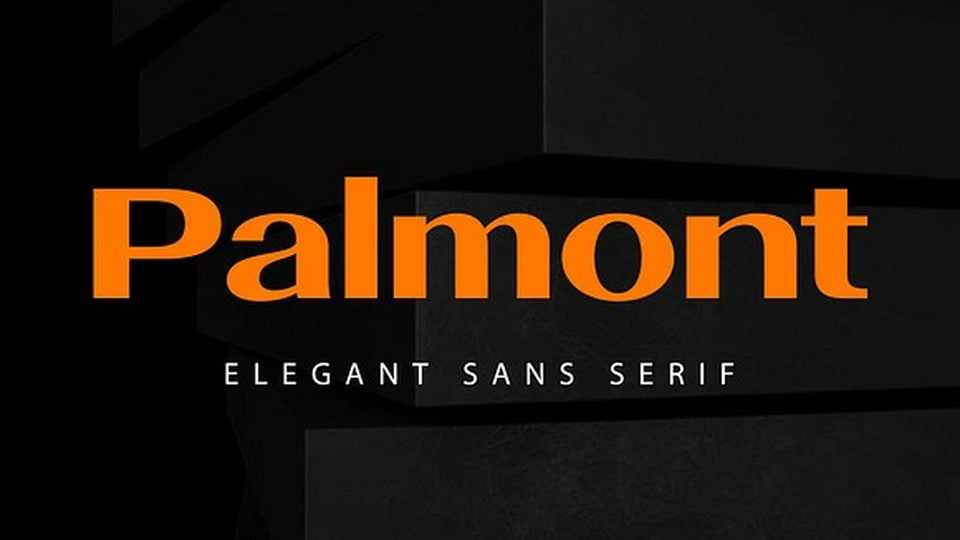
Download Palmont font, a modern vintage typeface designed with wide width, geometric shapes, and a futuristic feel, making it versatile for any design project.